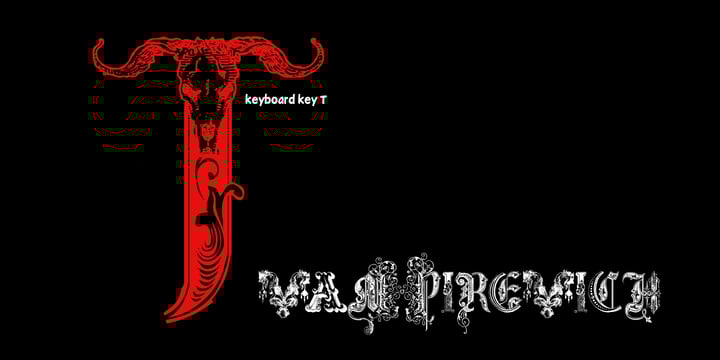
Vampirevich
von Intellecta Design
Die Schriftfamilie Vampirevich wurde von Paulo W entworfen und von Intellecta Design veröffentlicht. Vampirevich enthält 1 Stile und Familienpaketoptionen.
A mix and mash of various different decorative letter designs. Very diverse and great for header designs.
Intellecta Design is a Brazilian typefoundry interested in typographical research and revivals of all forms of ancient typefaces and handwriting styles. It searches historical churches, museums, antiquaries and similar institutions to develop fonts from old books and documents, and has a large collection of rare catalogues and books from XVI to XIX century to help in your studies to digitize lost fonts and non-usual handwriting script models. This kind of research is not common in Brazil. In addition, its design team also works to create new and modern typefaces for all applications. Intellecta Design claims to be the creator and owner of the largest typeface library in Latin America.